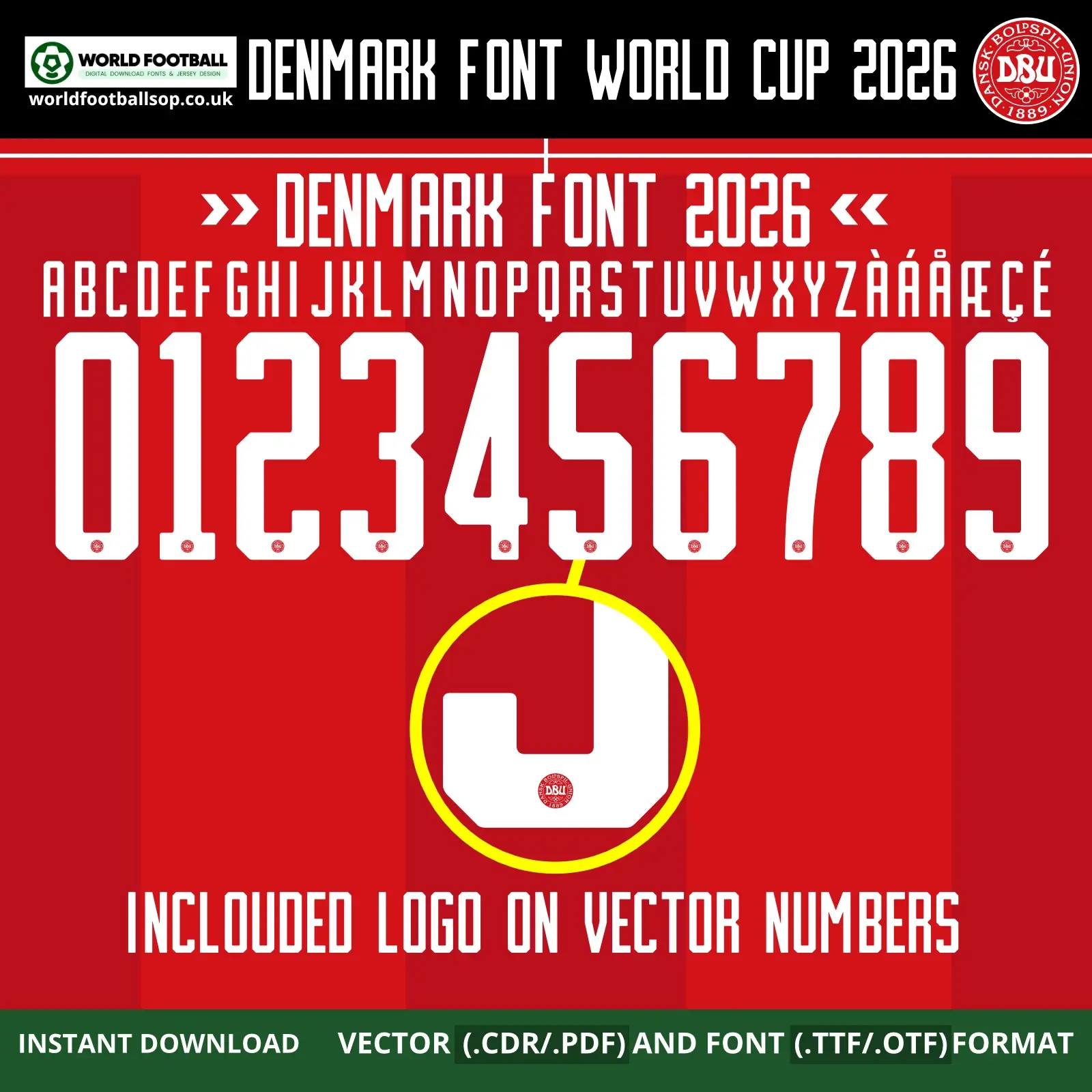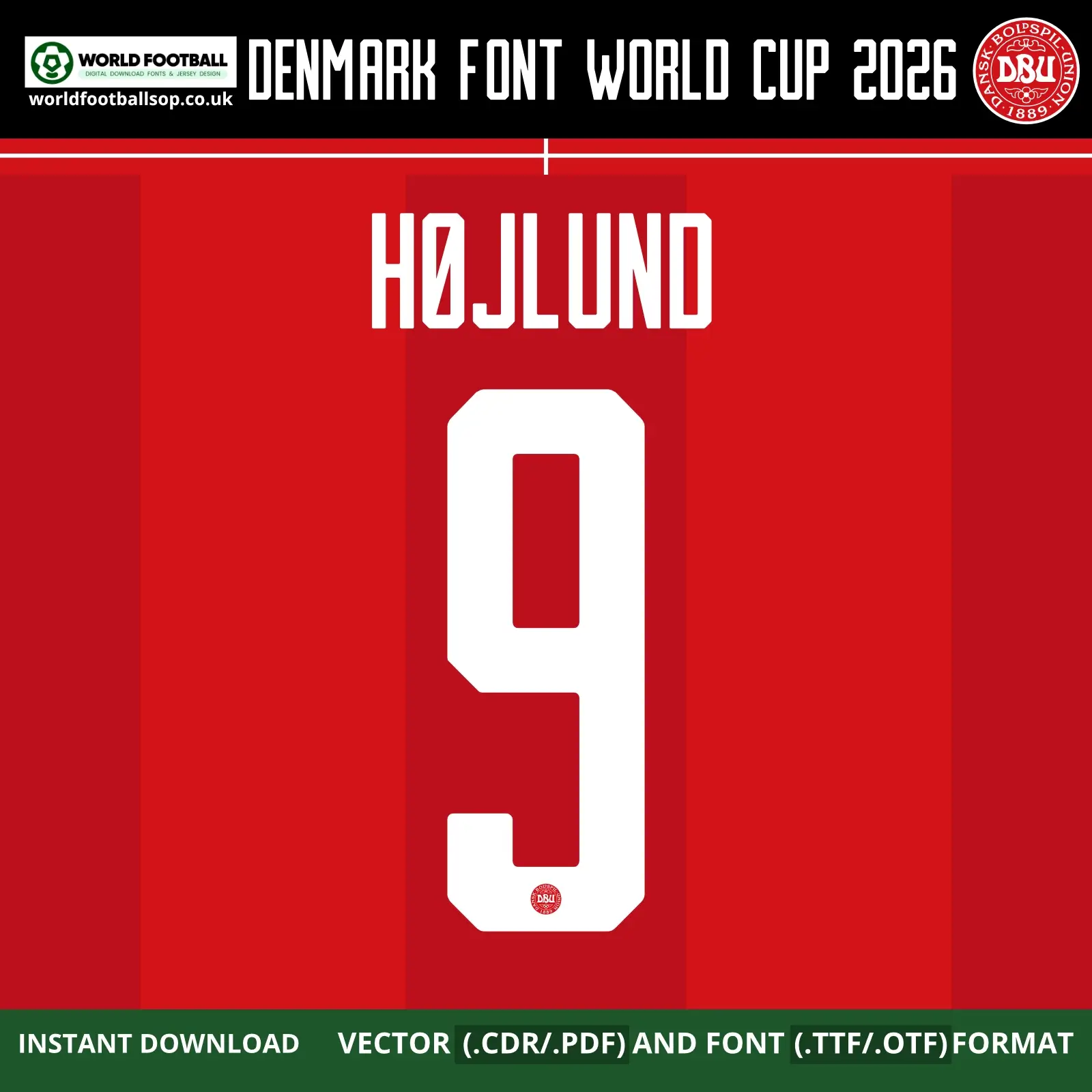
Denmark Font World Cup 2026 for the red Hummel home kit, featuring tall white block numbers and letters inspired by the official tournament nameset. Includes TTF, OTF and vector files (CDR, PDF) with full A-Z alphabet, Nordic accents and 0-9 numbers for custom Denmark jerseys and football graphics. Instant digital download.
Denmark Font World Cup 2026 - Classic Red‑and‑White Home Kit Style
The Denmark Font World Cup 2026 Home Kit pack recreates the bold, vertical lettering seen on the new Hummel home shirt for the 2026 tournament. The font uses tall, octagonal shapes with clipped corners and subtle cut‑outs, giving each number a strong Scandinavian feel that fits perfectly on Denmark’s classic red shirt with white trim. Thin spacing and consistent stroke widths keep everything clean and highly readable from the stands or on TV, whether you set “HØJLUND 9” or your own name and favourite number.
This typeface was designed for fans, kit printers and digital designers who want authentic‑looking Denmark 2026 World Cup namesets without needing official artwork. The numbers in the vector files include small DBU crest logos at the base, just like the real kit, while the plain TTF/OTF fonts stay simple and lightweight for everyday use. Use it for jerseys, banners, posters, thumbnails and any football project where you want a true “For Danmark” identity.
Full uppercase A-Z alphabet plus Nordic and European accents (Å, Ä, Á, É, Ø, Æ, Ç, etc.) for authentic player names
Numbers 0-9 in the Denmark 2026 home kit style, prepared for back, front or shorts printing
Preview layouts: complete number set, enlarged detail of a single digit, and a sample “HØJLUND 9” nameset for product images
Design highlights
World Cup ready: Matches the typography used on Denmark’s 2026 World Cup home kit – red shirt, white details and strong vertical striping in the fabric.
Scandinavian character: Octagonal corners and upright proportions echo classic Danish design and old‑school block numbers while still feeling modern.